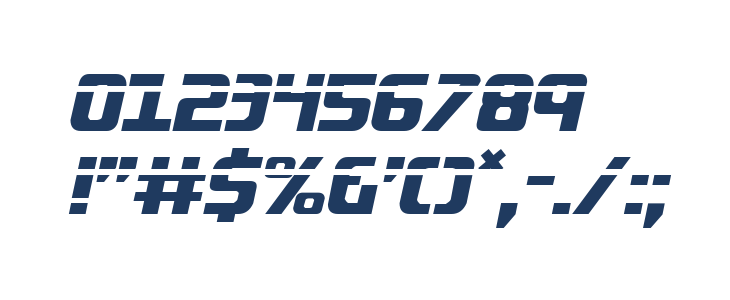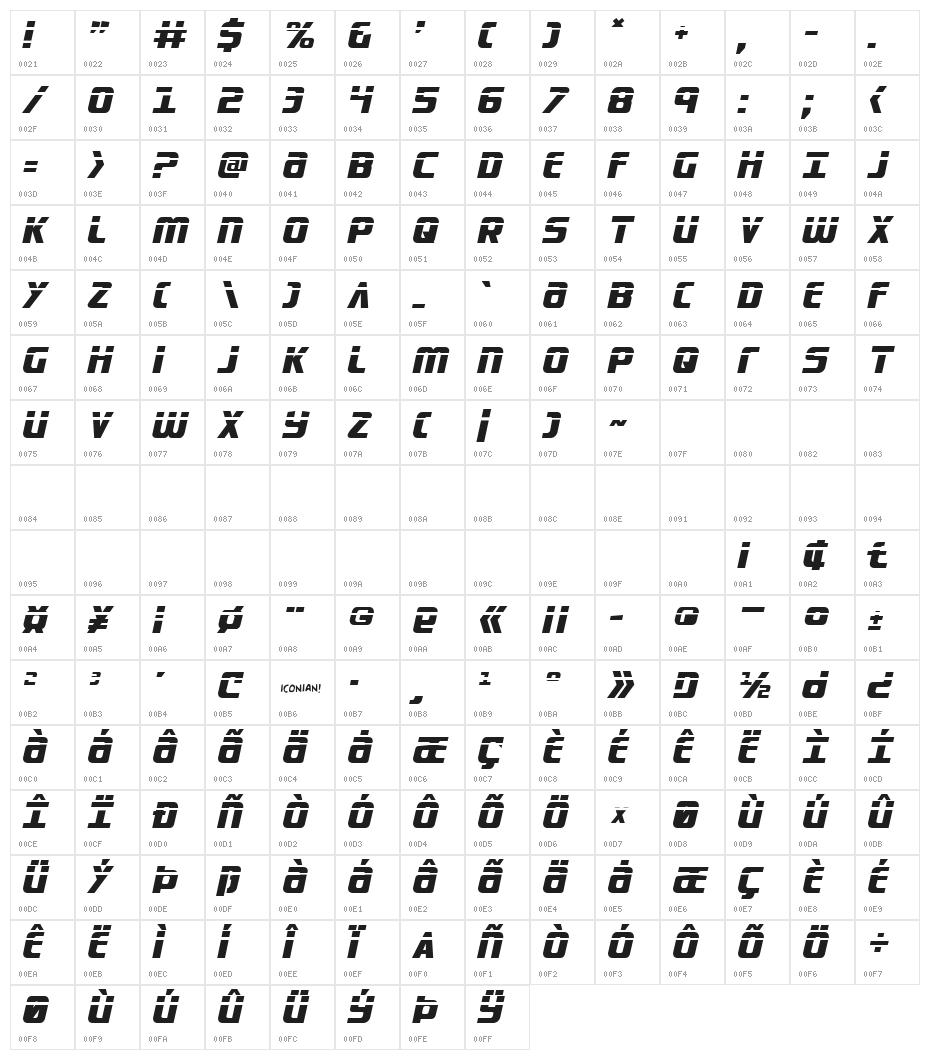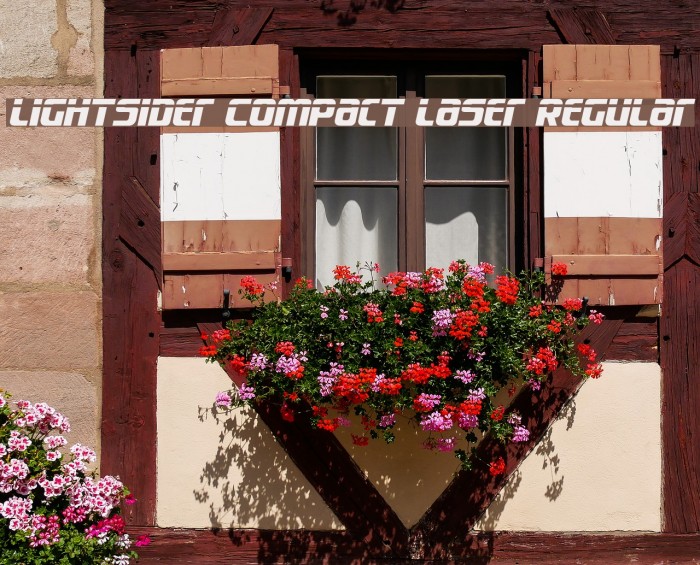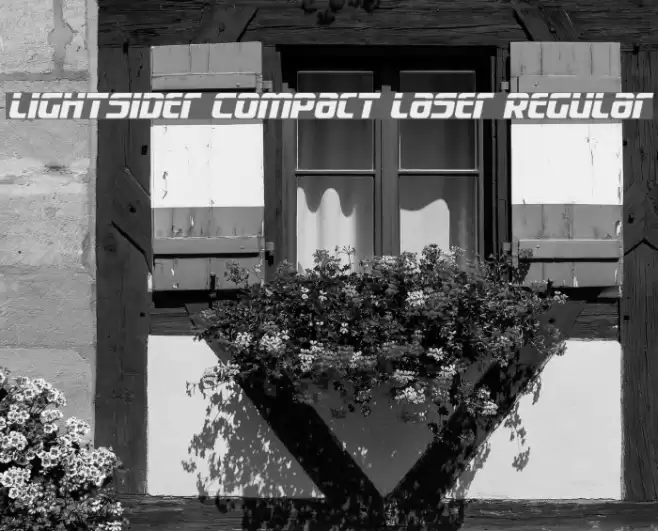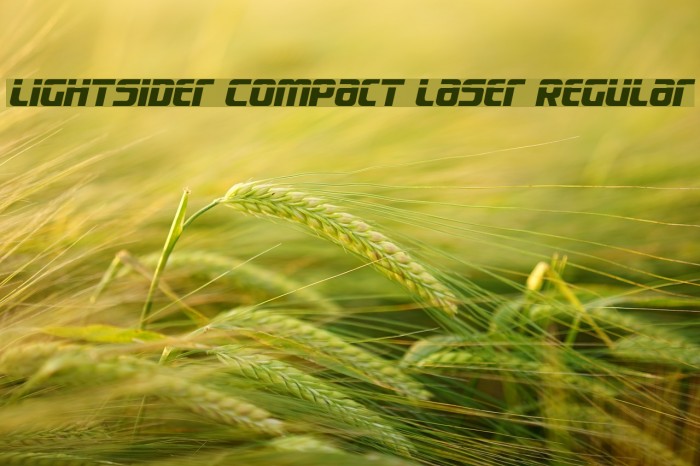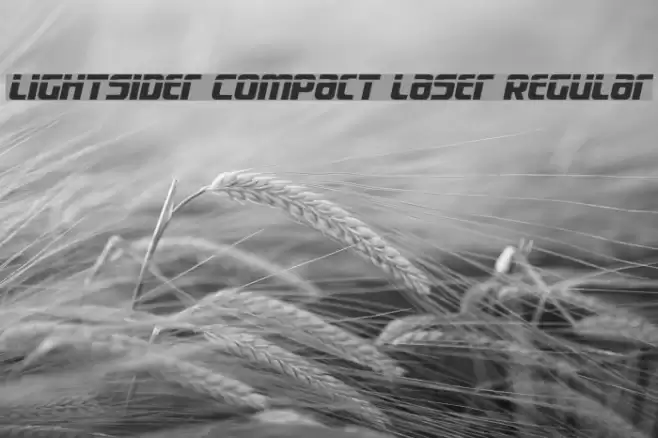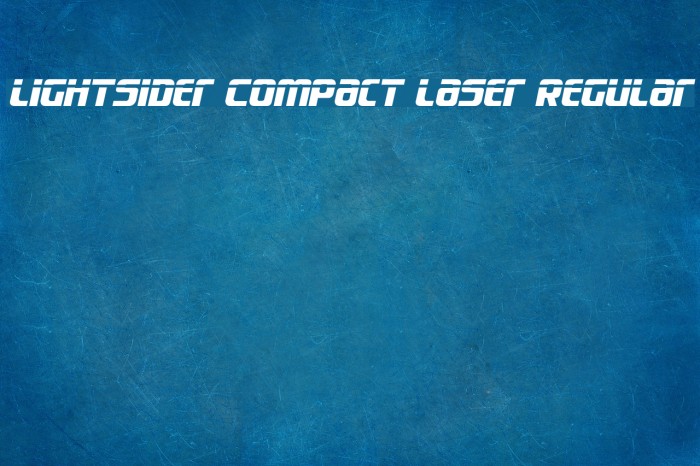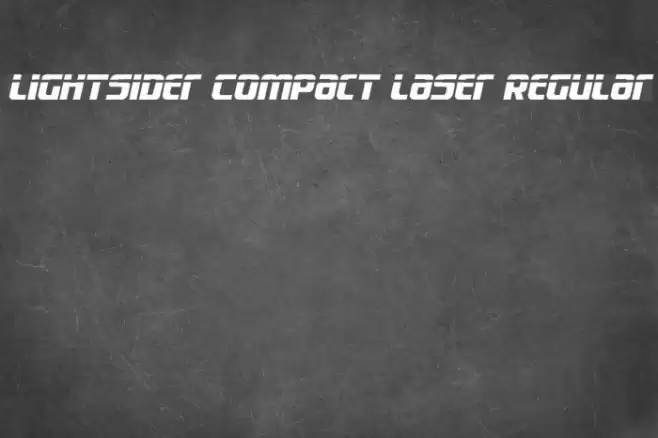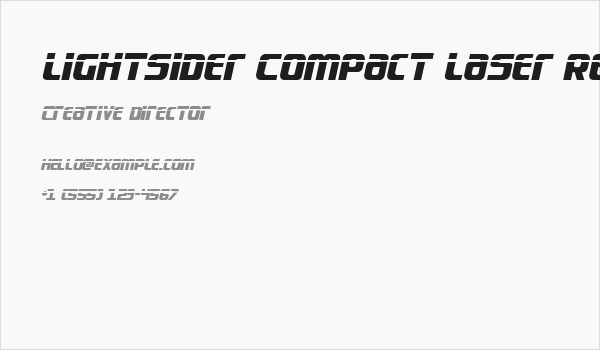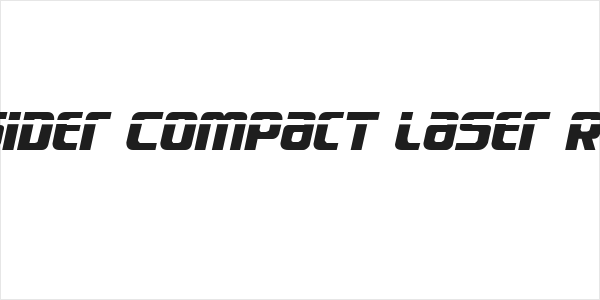
Lightsider Compact Laser Regular Font
Lightsider Compact Laser Regular Description
This font features a futuristic and dynamic style, characterized by its bold, angular shapes and compact design. The letters are slightly slanted, giving a sense of motion and speed. The strokes are thick and consistent, with minimal contrast, creating a strong and impactful appearance. The font's geometric structure is evident in its sharp edges and clean lines, making it suitable for modern and tech-oriented designs. The spacing between characters is tight, enhancing its compact and cohesive look.